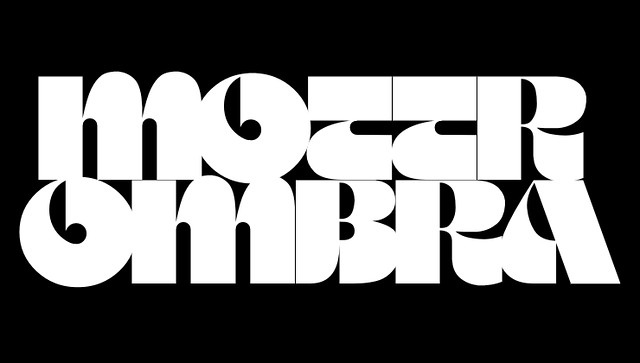
Motter Ombra Font
Motter Ombra Font is perfect for retro music venues, vintage advertising campaigns, 1970s-themed entertainment, nostalgic fashion brands, classic record labels, groovy poster designs, psychedelic art galleries, throwback restaurant branding, vintage concert promotions, and authentic retro lifestyle marketing.
Motter Ombra Font creates excitement because it embodies the distinctive style and cultural revolution of the 1970s era with its bold letterforms and shadow-enhanced character design. The font's dimensional depth and retro aesthetic instantly convey nostalgic authenticity and vintage sophistication, making any brand appear timelessly cool and genuinely connected to classic design heritage. Its carefully crafted shadow details and groovy character create an immediate sense of retro authenticity that captivates audiences seeking vintage experiences, classic quality, and products that celebrate the transformative power of 1970s design and cultural innovation.
The Motter Ombra Font family includes multiple weights and styles: Regular, Bold, Light, Medium, Italic, Condensed, Extended, Shadow, Groovy, and Retro versions. Each variant maintains the font's signature 1970s character while offering different levels of vintage styling and retro authenticity suitable for various entertainment and nostalgic applications.